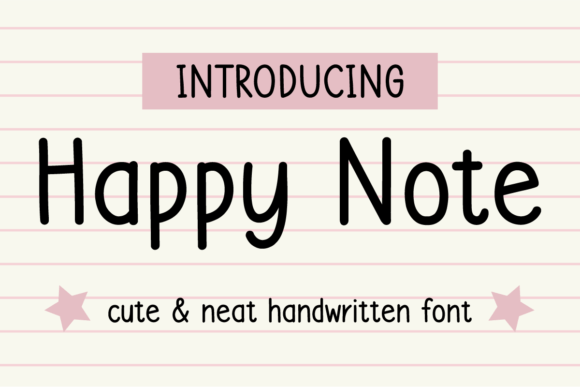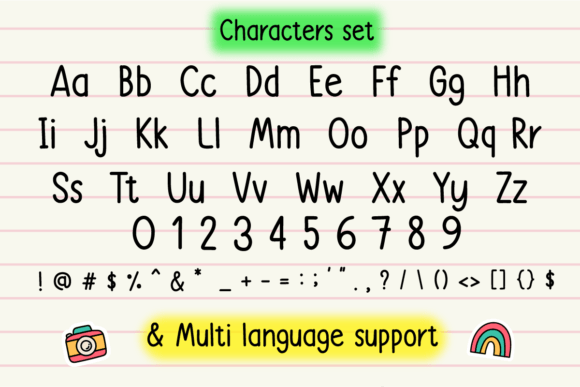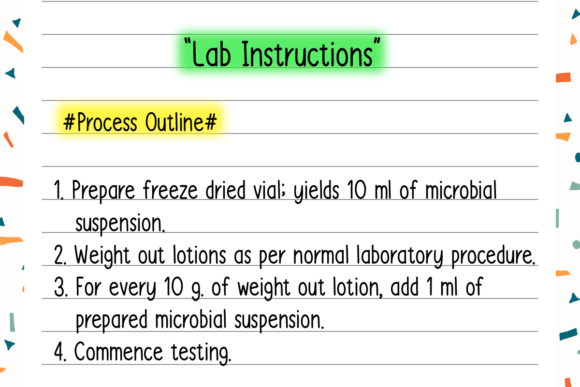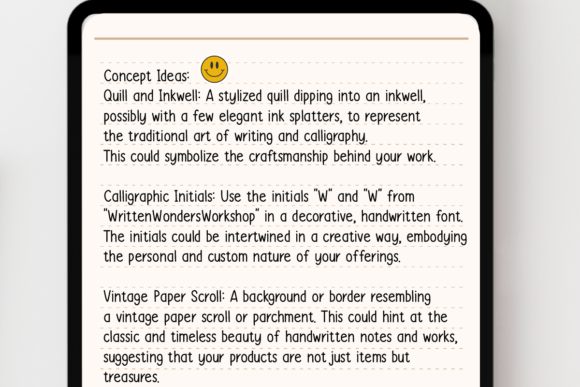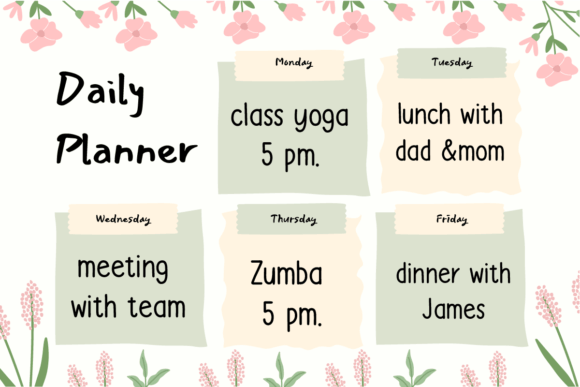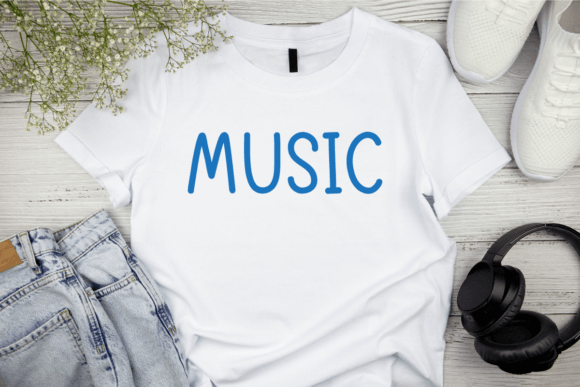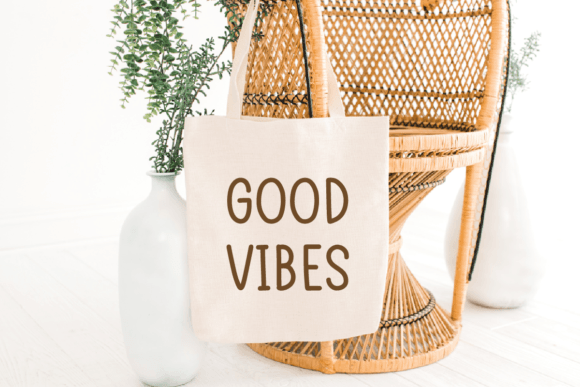
Happy Note Font
Happy Note is designed in a cute and neat handwritten sans serif font style. This font adds a touch of joy and fun to your digital notes, digital planners, note-taking and creative projects!